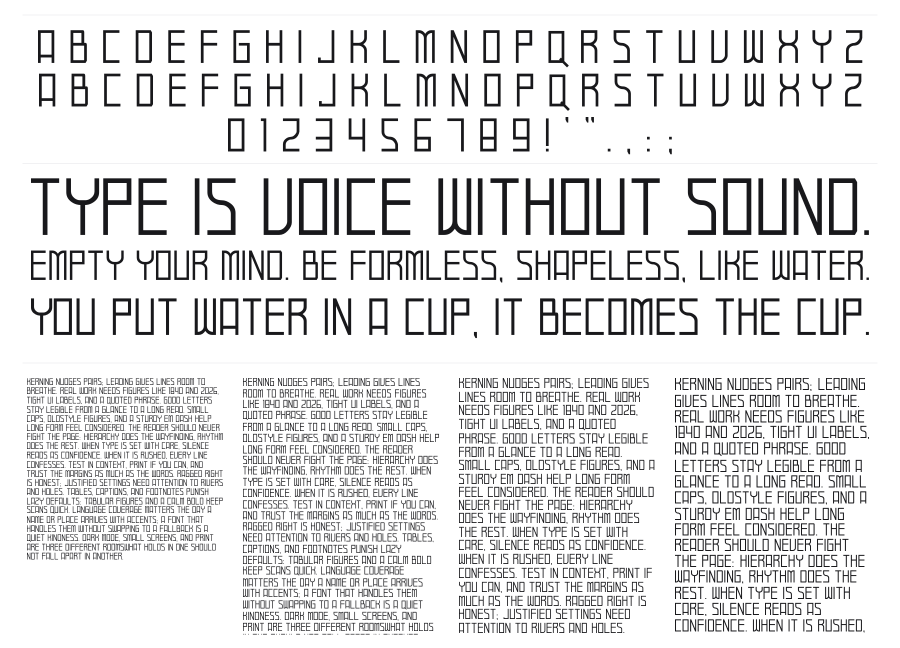
Balkinsat
by Ilham Andreawan
Balkinsat is a condensed geometric sans built entirely from squared, rectangular forms with near-monoweight strokes and flat terminals. Every character follows the same strict angular logic, giving the typeface a modular, grid-constructed quality reminiscent of constructivist lettering. Strong at large sizes for headlines, logos, and anything that needs an industrial or futuristic edge.